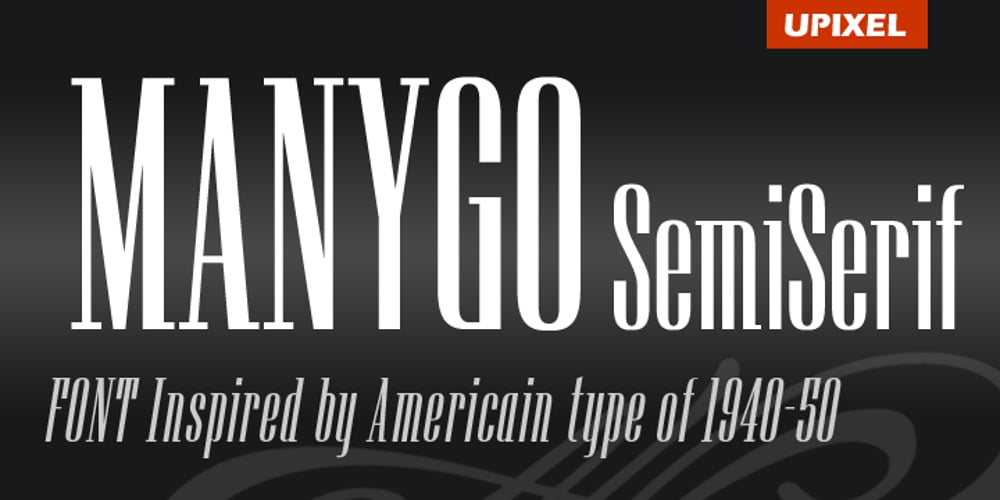
Manygo Semi Serif Font Family was designed by Michel Troy and published by UrbanPixel. Manygo Semi Serif contains 2 styles and family package options. This font is inspired by American type in the 40s and 50s.